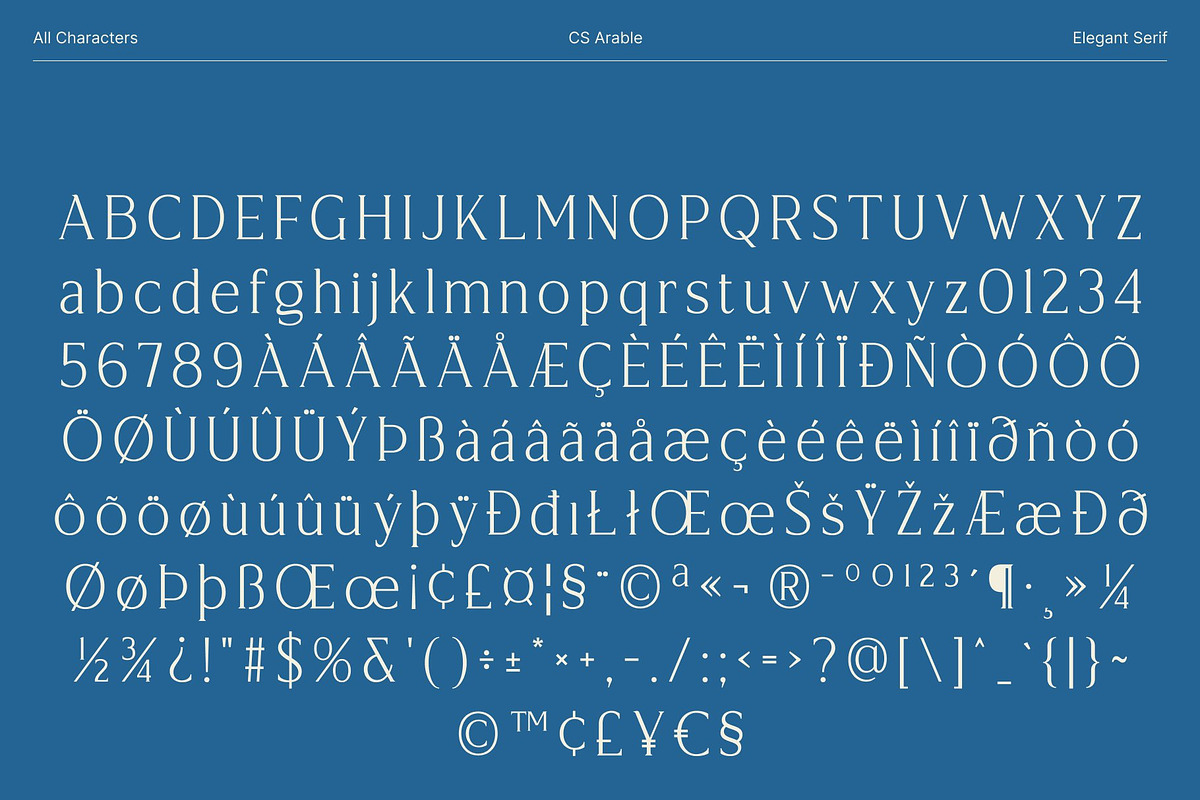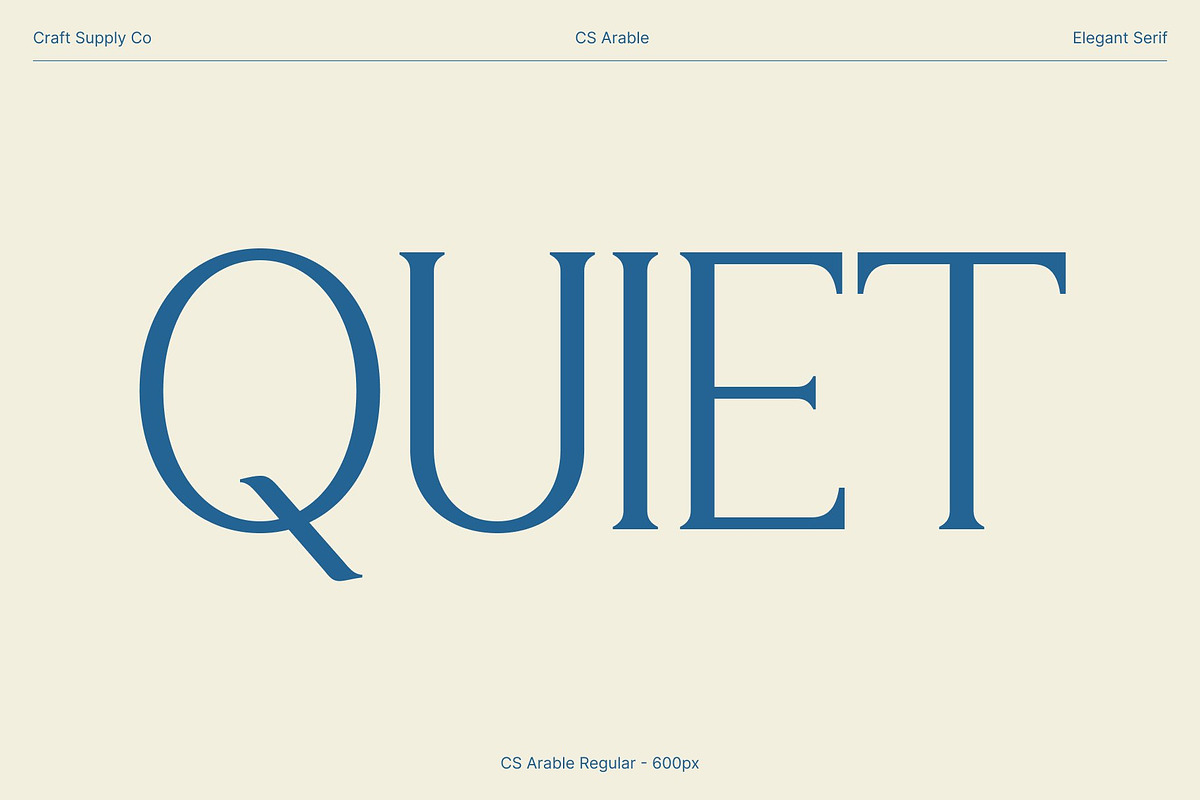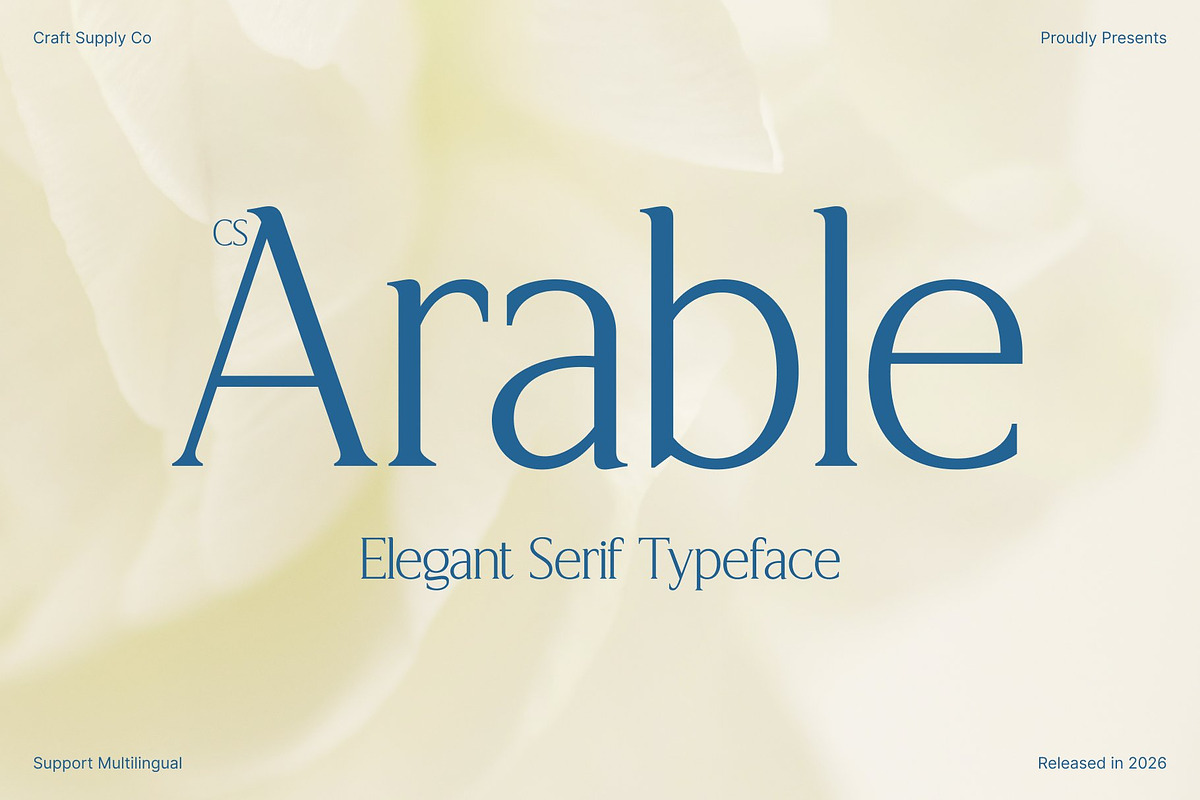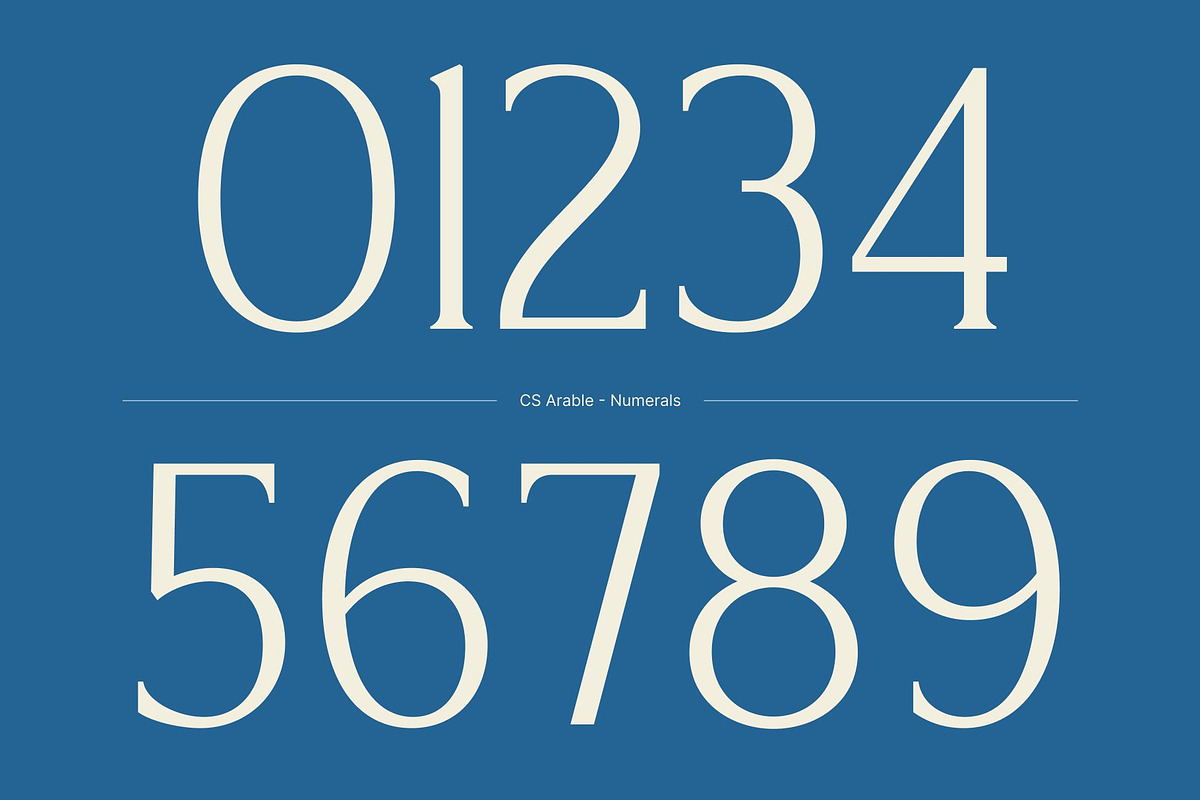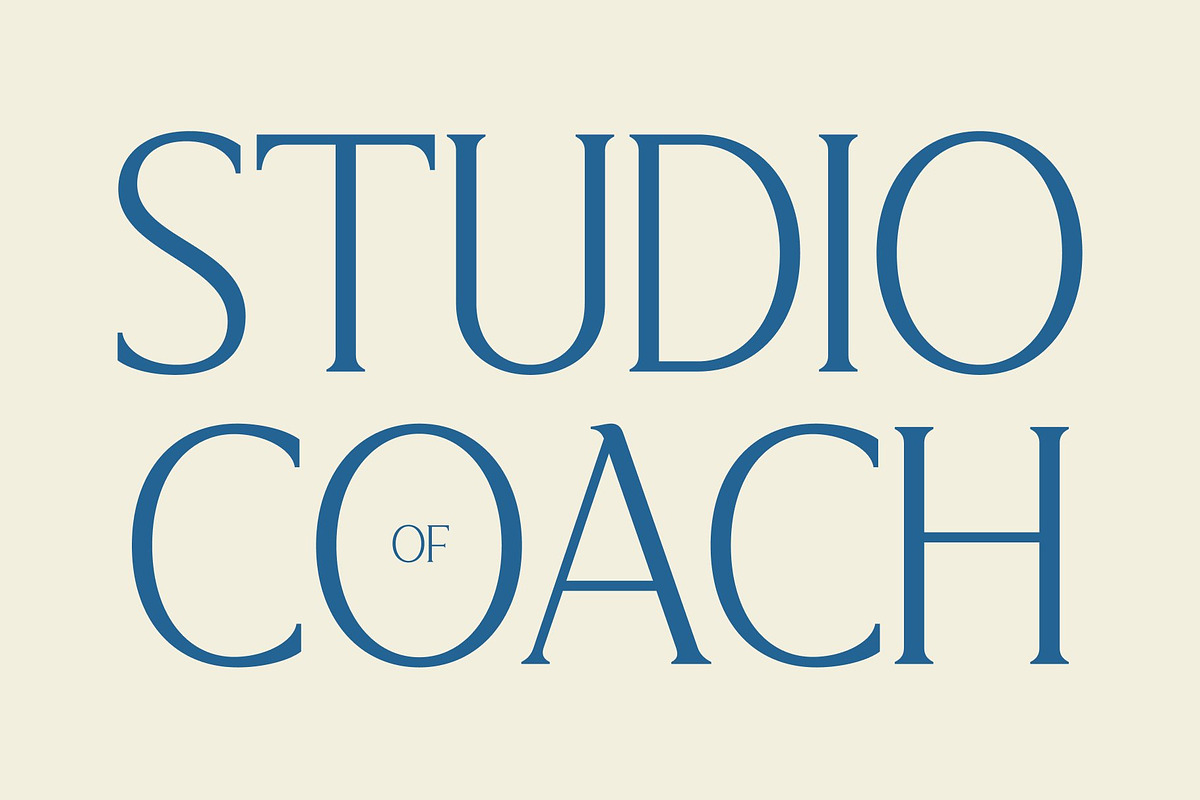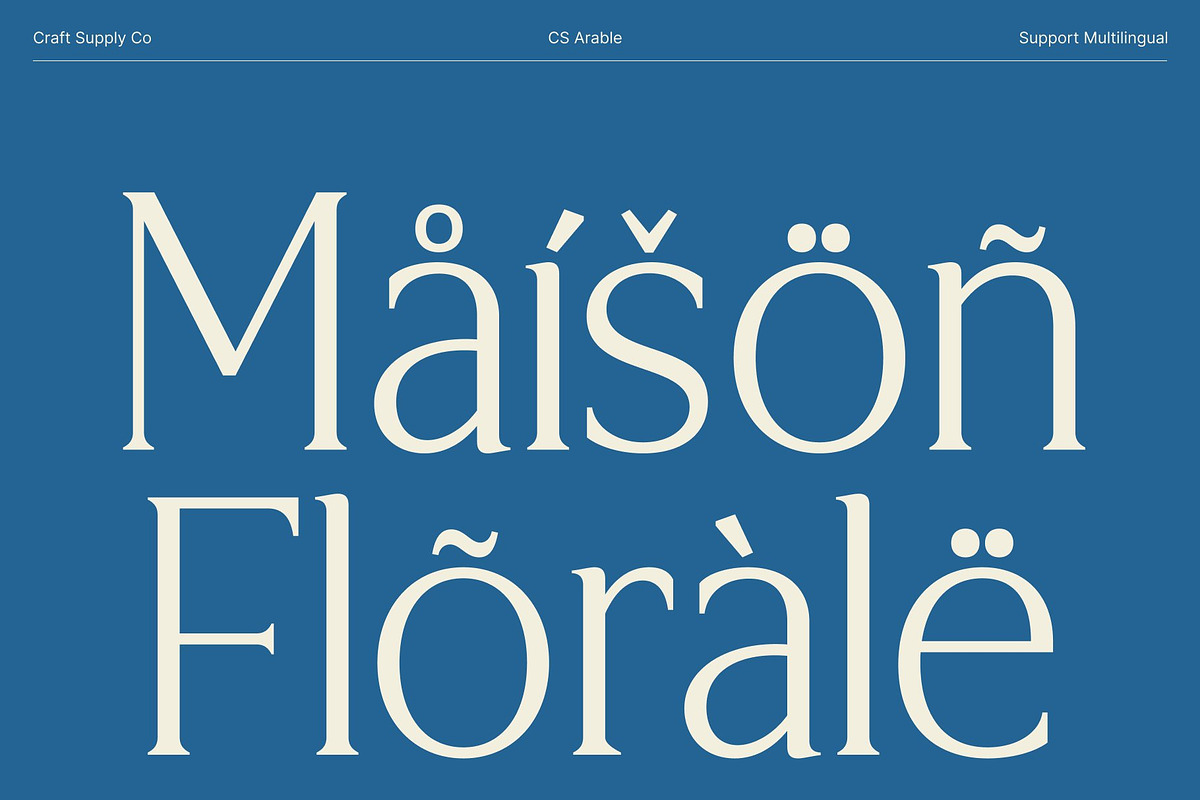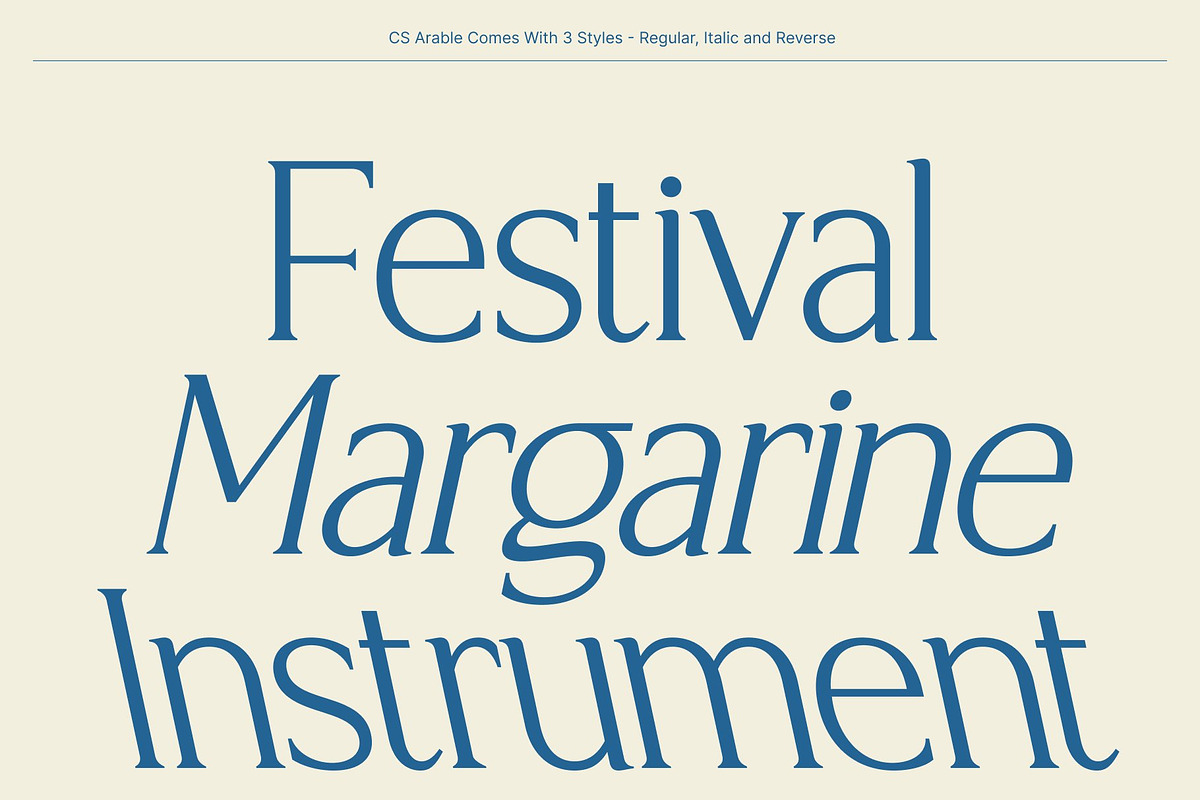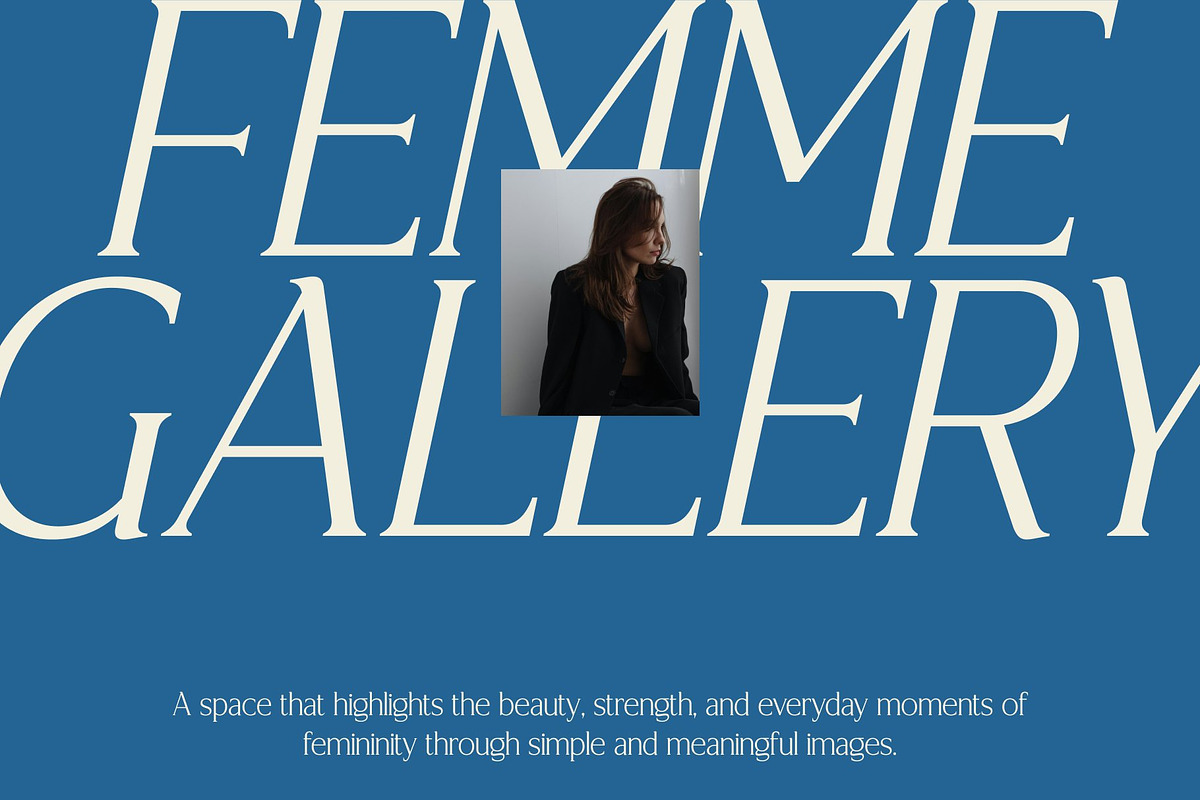
CS Arable – Elegant Serif Font
CS Arable – Modern Serif with Refined Elegance
Modern Serif with Slender Sophistication This is a modern serif font defined by its slender serifs and graceful proportions. Every letter is carefully shaped to radiate refinement, bringing a polished and elevated tone to your typography. The delicate balance between thin strokes and elegant curves creates a refined presence that instantly communicates sophistication.
Graceful Letterforms with Artistic Detail This font celebrates the beauty of subtle detail. Its slim serifs and smooth transitions create a sense of rhythm and harmony across words and headlines. The refined shapes feel artistic yet controlled, giving your designs a timeless personality that feels both modern and luxurious.
High-End Style with Excellent Readability Despite its elegant appearance, this font maintains strong legibility across a wide range of sizes. The carefully balanced contrast and spacing ensure clarity in both large headlines and smaller text applications. This harmony of beauty and functionality makes it a dependable choice for professional design work.
Perfect for Luxury Branding and Editorial Design This font shines in luxury branding, posters, and editorial layouts where sophistication is essential. Whether used for fashion campaigns, magazine spreads, packaging, or logos, it delivers a refined and artistic impression that elevates every project with high-end elegance.
CS Arable Regular
CS Arable Italic
CS Arable Reverse Italic